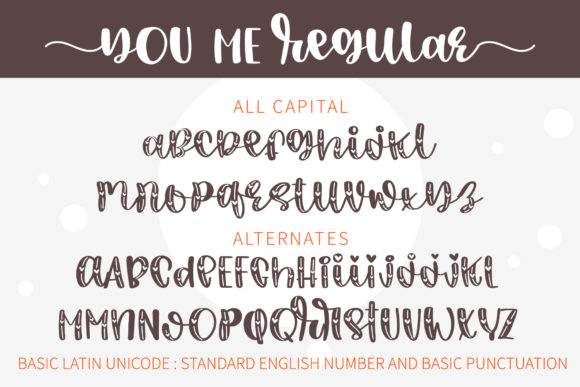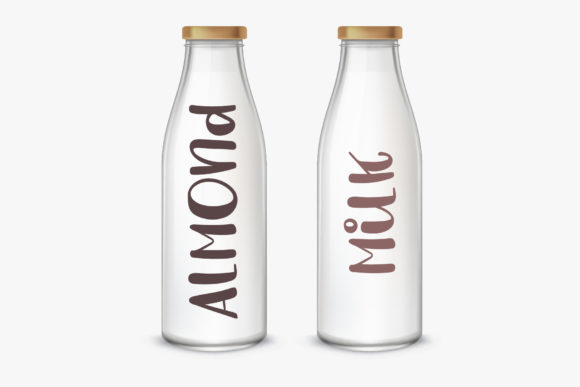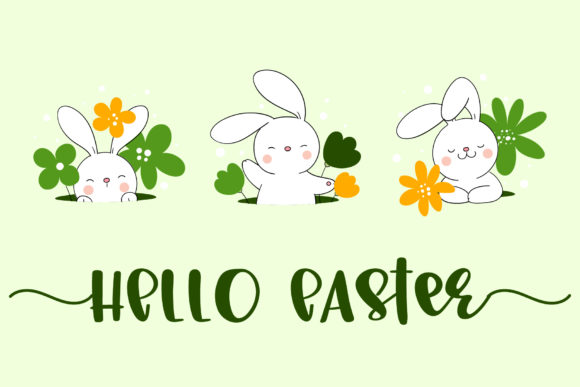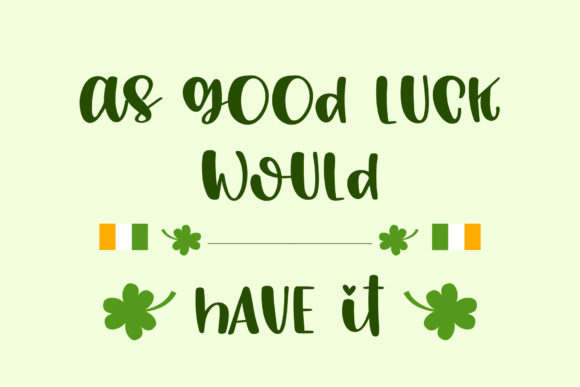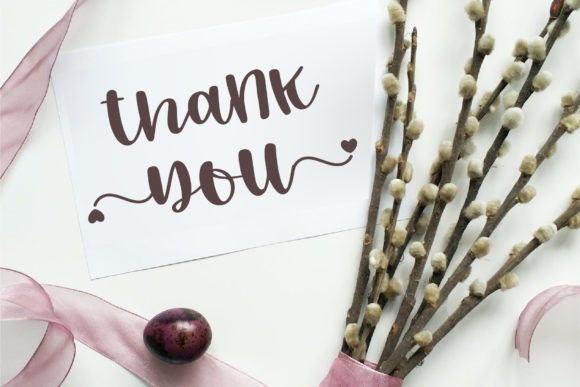
About You Me Font
You Me is a font that exudes beauty and friendliness in its charming handwritten style. With a romantic theme, it becomes the perfect choice for design projects that require a touch of love and elegance. Whether you’re working on wedding invitations, love letters, greeting cards, or any creative endeavor, You Me adds a heartfelt and charming appearance to your work.
The friendly and approachable nature of You Me makes it a font that resonates with people of all ages. Its handwritten quality brings an authentic and personal touch to your designs, creating a warm and welcoming atmosphere that captures the hearts of your audience.
The romantic theme of You Me infuses each letter with a sense of love and affection. It becomes the ideal font for expressing heartfelt emotions and sentiments, making it a go-to choice for projects that evoke the magic of love.
With PUA encoding, You Me empowers you to access all the glyphs and swashes with ease, providing you with a plethora of creative possibilities. Customize and personalize your designs effortlessly, allowing your creative vision to flourish.
Embrace the beauty of You Me and experience how it transforms your designs into captivating works of art. Its charming and romantic touch adds a sense of elegance and sophistication to every piece of work.
Discover the joy of creating with You Me as your creative companion. Let its friendly and romantic appearance be the key to unlocking your creativity and bringing your design ideas to life.
Whether you’re designing for personal or professional purposes, You Me is the font that adds that extra touch of charm and allure to your creations. Fall in love with You Me and let it be the font that sparks your inspiration and brings a sense of enchantment to your designs. Experience the magic of You Me and witness how it adds a beautiful and romantic touch to your projects, making them truly special and unforgettable.